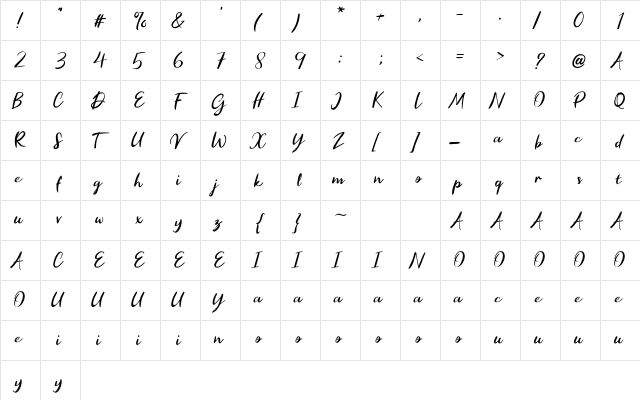
Caroline Wilson Regular
Design Context for Caroline Wilson Typeface
Caroline Wilson is a composed and adaptable typeface that performs quietly and consistently across a wide range of design contexts.